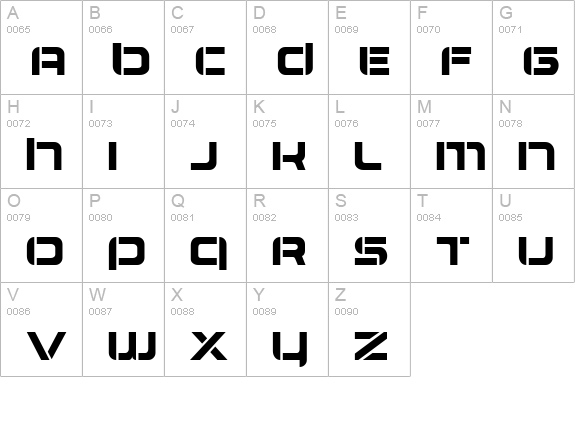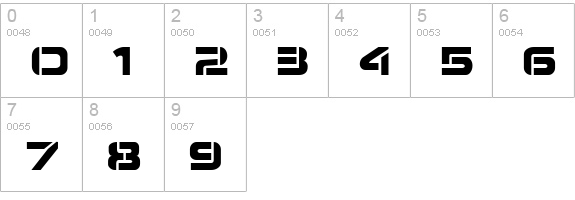
Airlock Regular Font Details
Airlock Regular is the standard, neutral variant in the Airlock typeface family \xE2\x80\x94 well suited to general body text, paragraphs, and standard typographic work.
Introducing Airlock Regular font, a sleek and modern typeface designed to elevate your projects to new heights. With its clean lines and contemporary aesthetic, Airlock Regular is perfect for a wide range of design applications, from branding and packaging to web design and marketing materials. This versatile font offers a perfect balance of sophistication and readability, making it ideal for both print and digital projects. Whether you're looking to create striking headlines or elegant body text, Airlock Regular has you covered. Best of all, Airlock Regular is available for free download at FontsMarket.com. So why wait? Add this stylish and professional font to your collection today and take your designs to the next level.